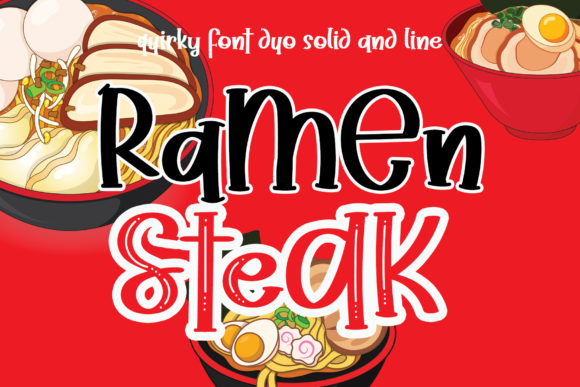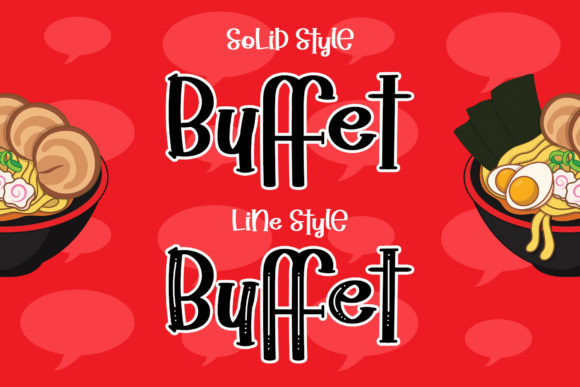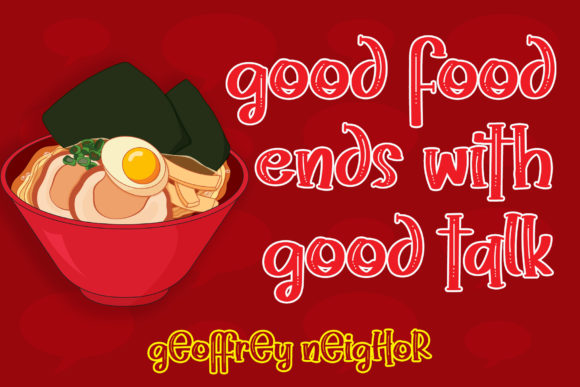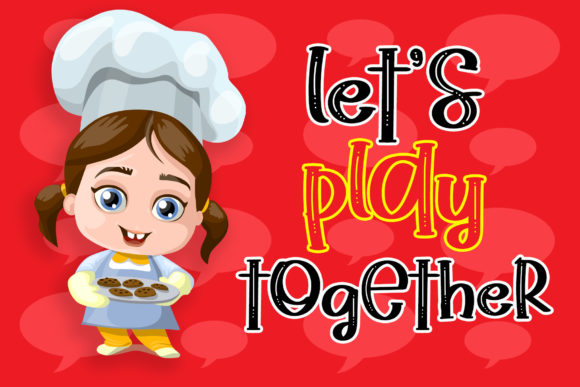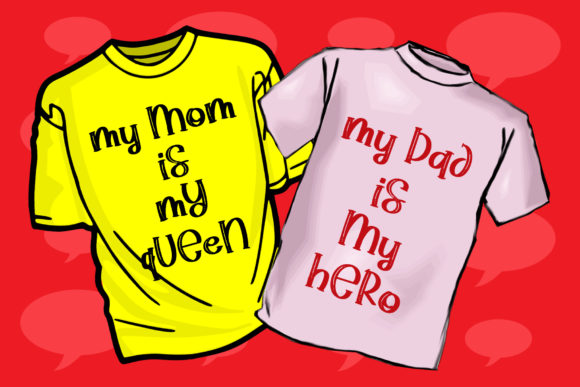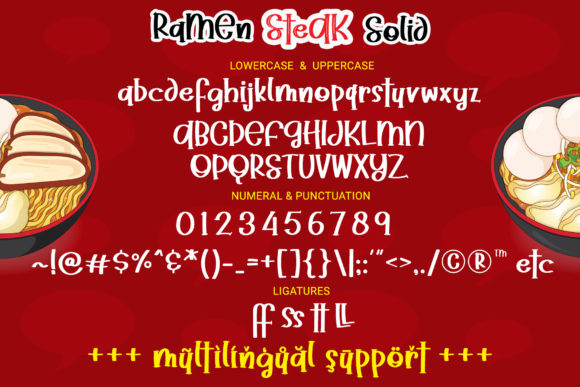
Ramen Steak Font
About Ramen Steak Font
Ramen Steak is quirky playful script font that will add a happy touch to your next designs.
Get inspired by its authentic feel and use it to create beautiful stationary art, eye-catching social media posts, and cute t-shirt designs.